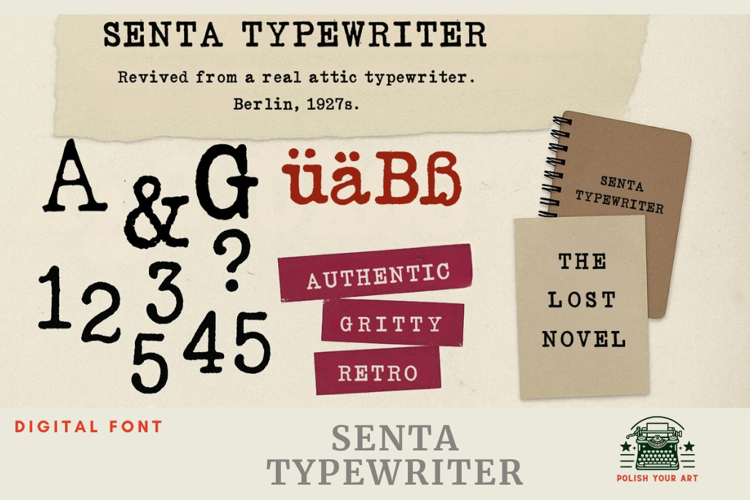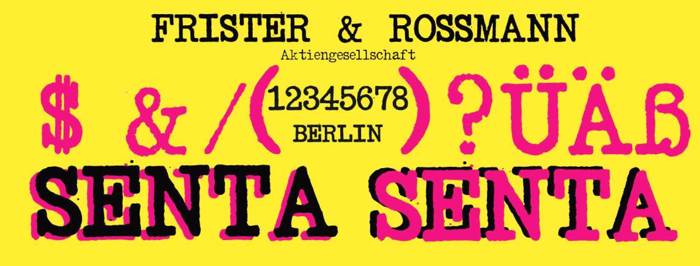
SENTA Schreibmaschine Font
Senta Typewriter – A Font With Real Grit
This is a demo of Senta Typewriter, a font pulled straight from history. It was crafted from the keystrokes of a 1927 Frister & Rossmann SENTA portable typewriter I found in my grandma’s attic — cleaned up, digitized, and brought back to life with all its smudges, quirks, and analog charm.
Some glyphs were even drawn by hand to preserve that imperfect beauty only old typewriters deliver.
Uppercase & lowercase letters
Full punctuation set
Support for German, French, and Polish characters
Four distinct styles: Senta Regular and Senta Thin, Senta Bold and Senta Latin.
Whether you're designing zines, film props, book interiors, or analog-inspired brands — this font delivers authentic vintage soul.